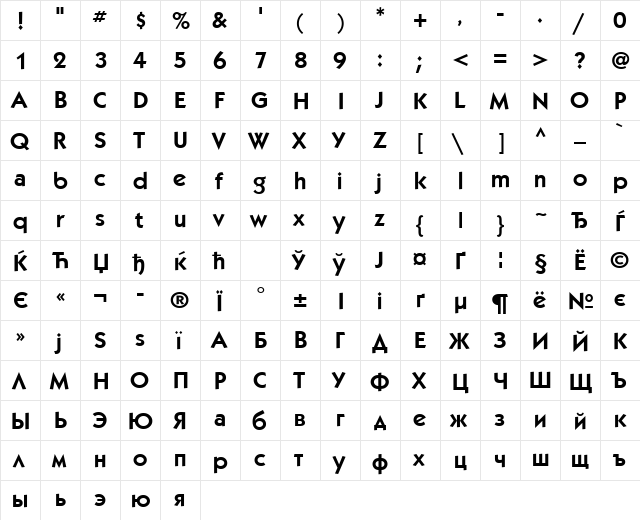
KabelCTT Book Bold Font Preview
KabelCTT Book Bold
KabelCTT Book Bold Font Details
Design Context for KabelCTT Book Typeface
KabelCTT Book is a composed and adaptable typeface that performs quietly and consistently across a wide range of design contexts. Its bold stroke weight gives it real presence on the page.